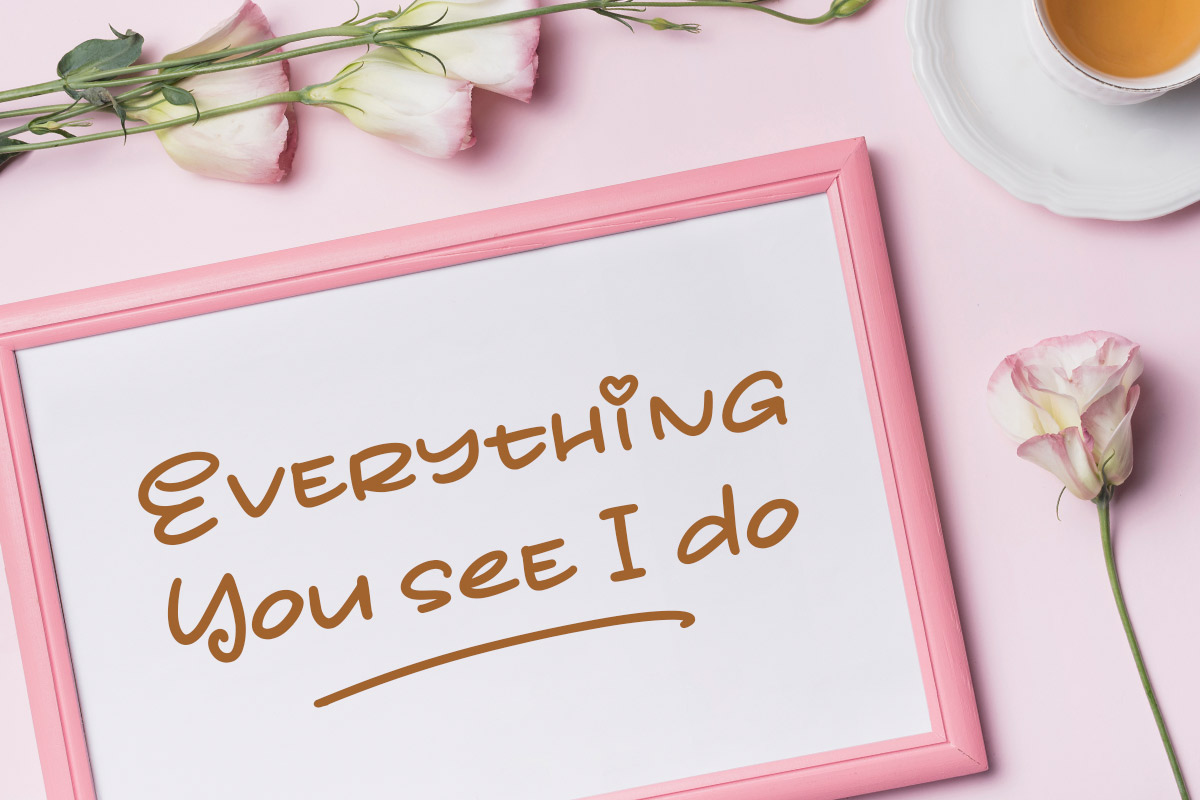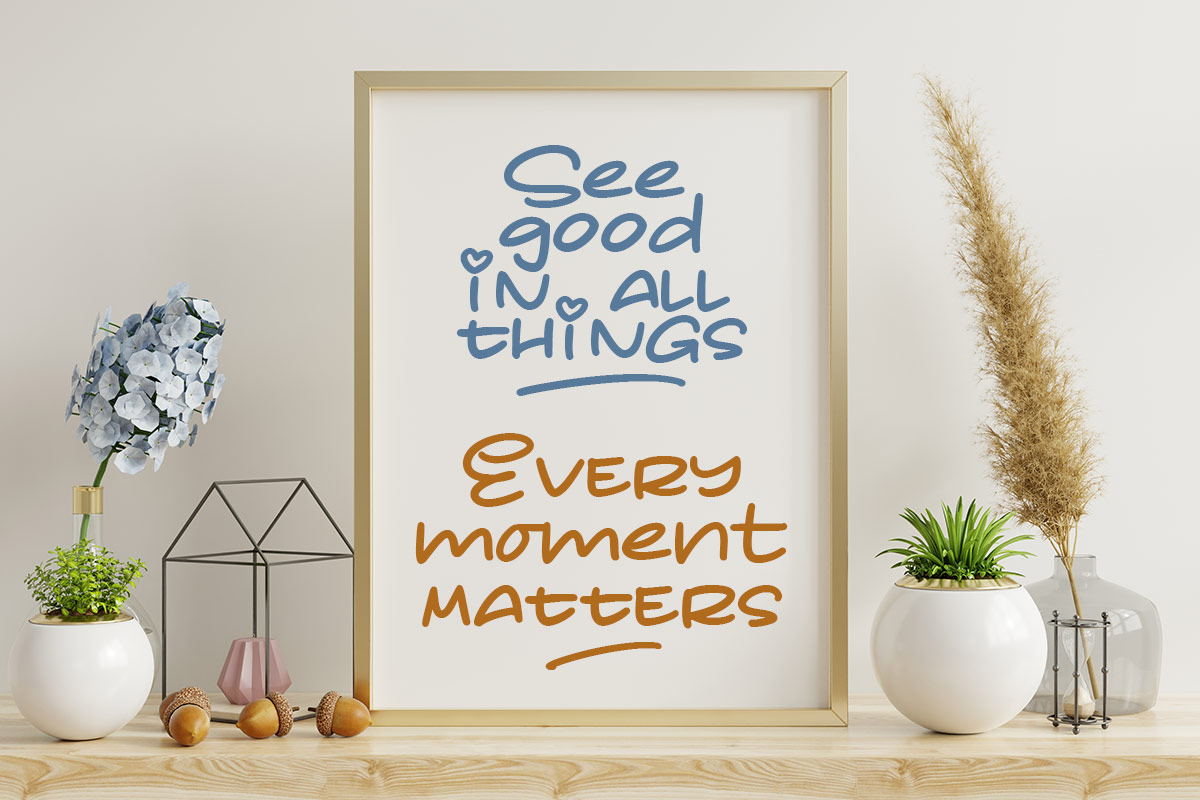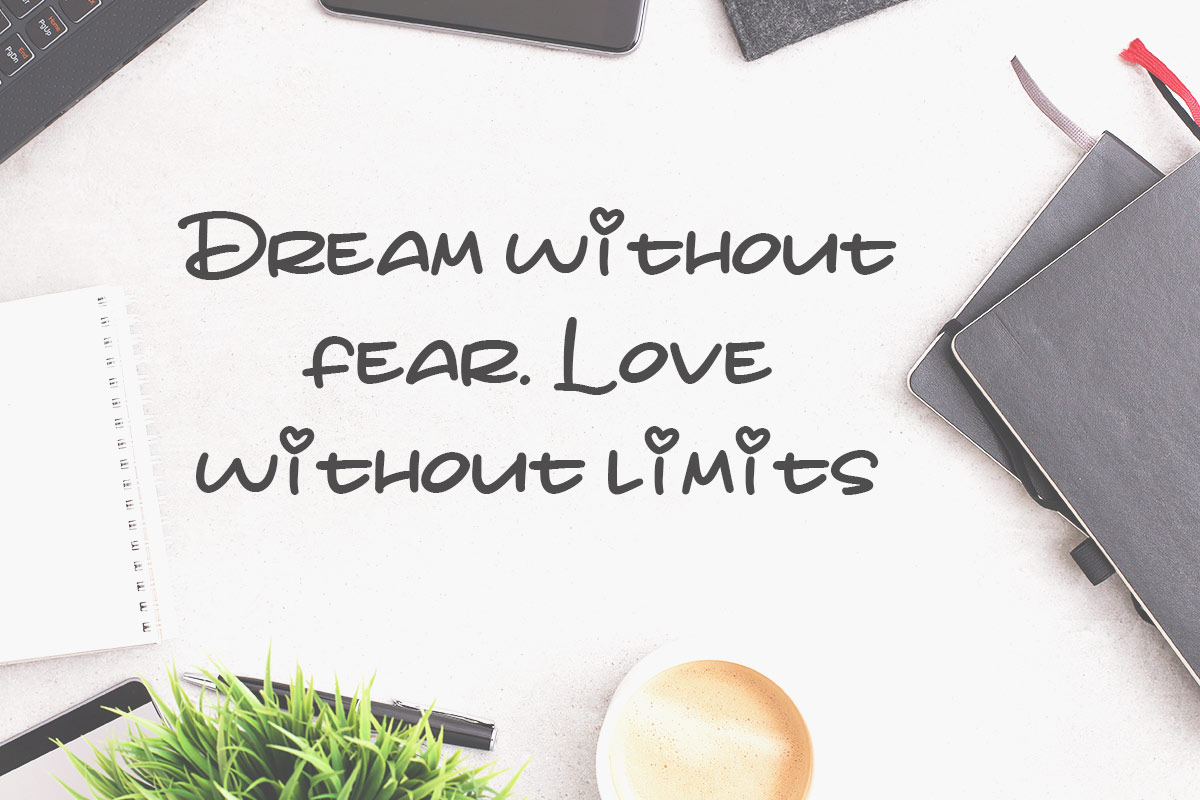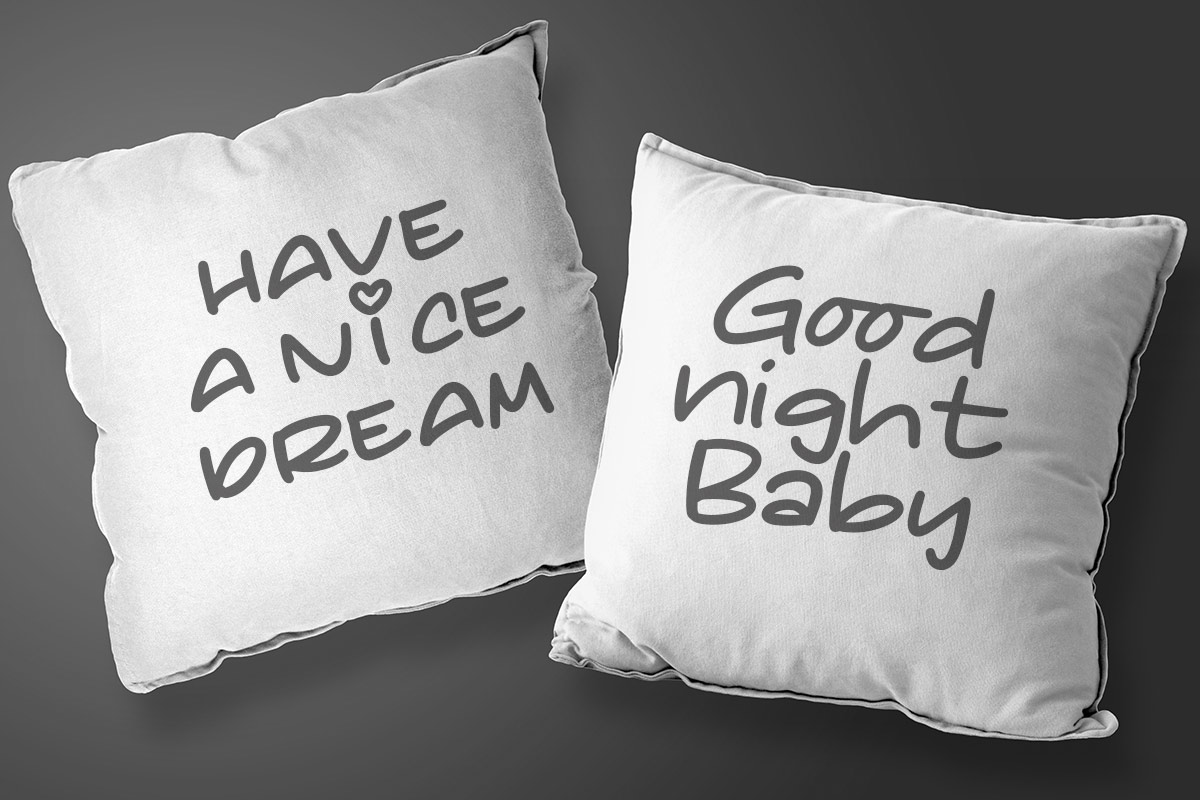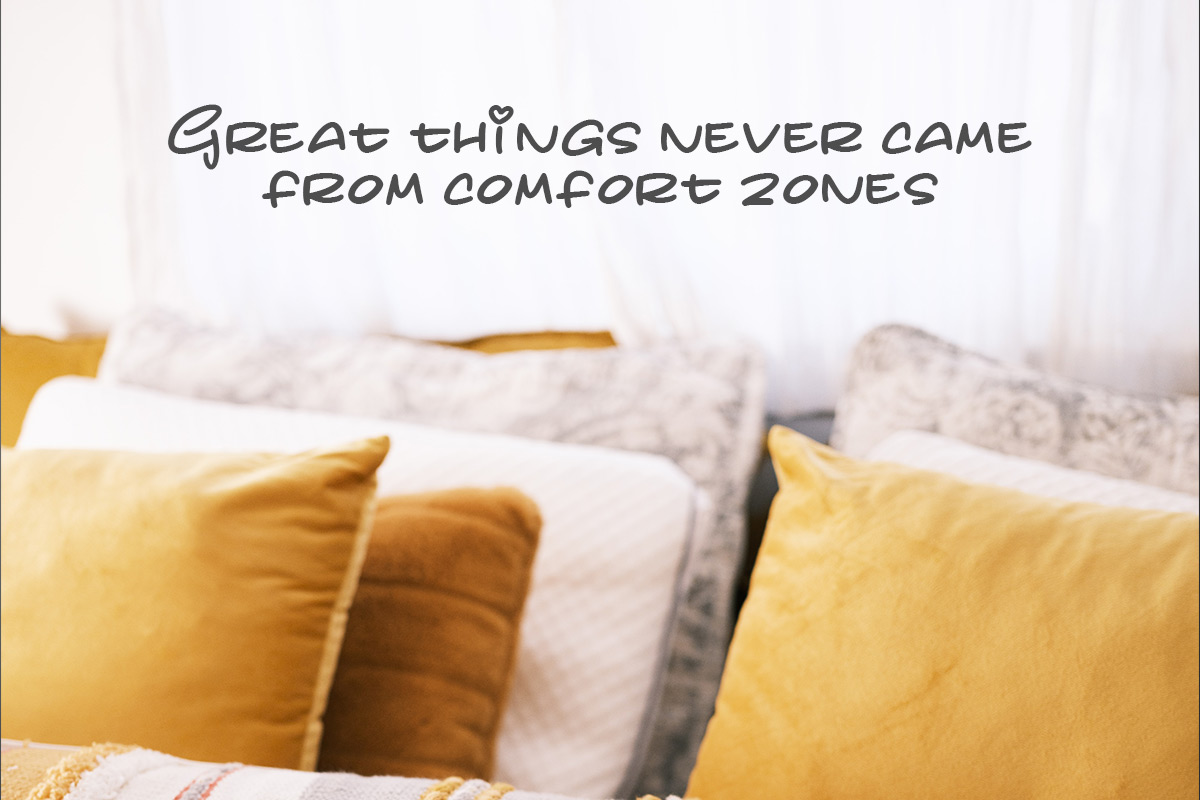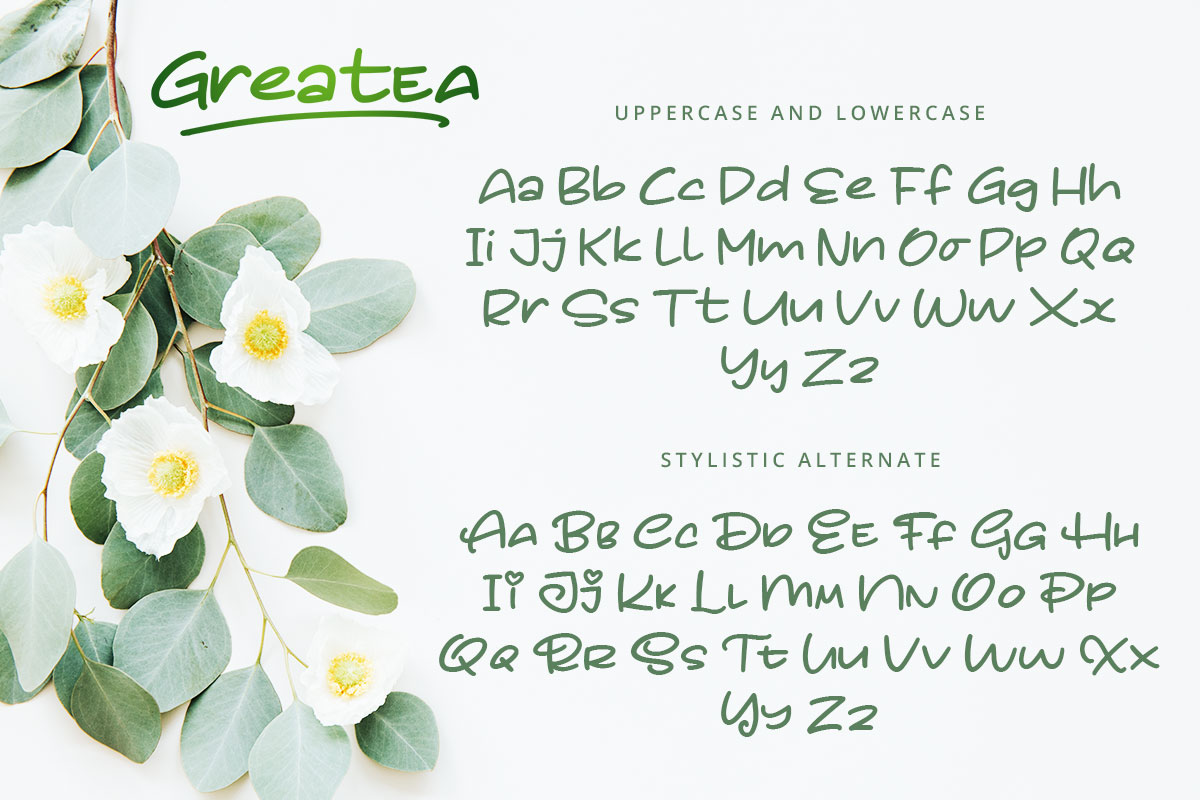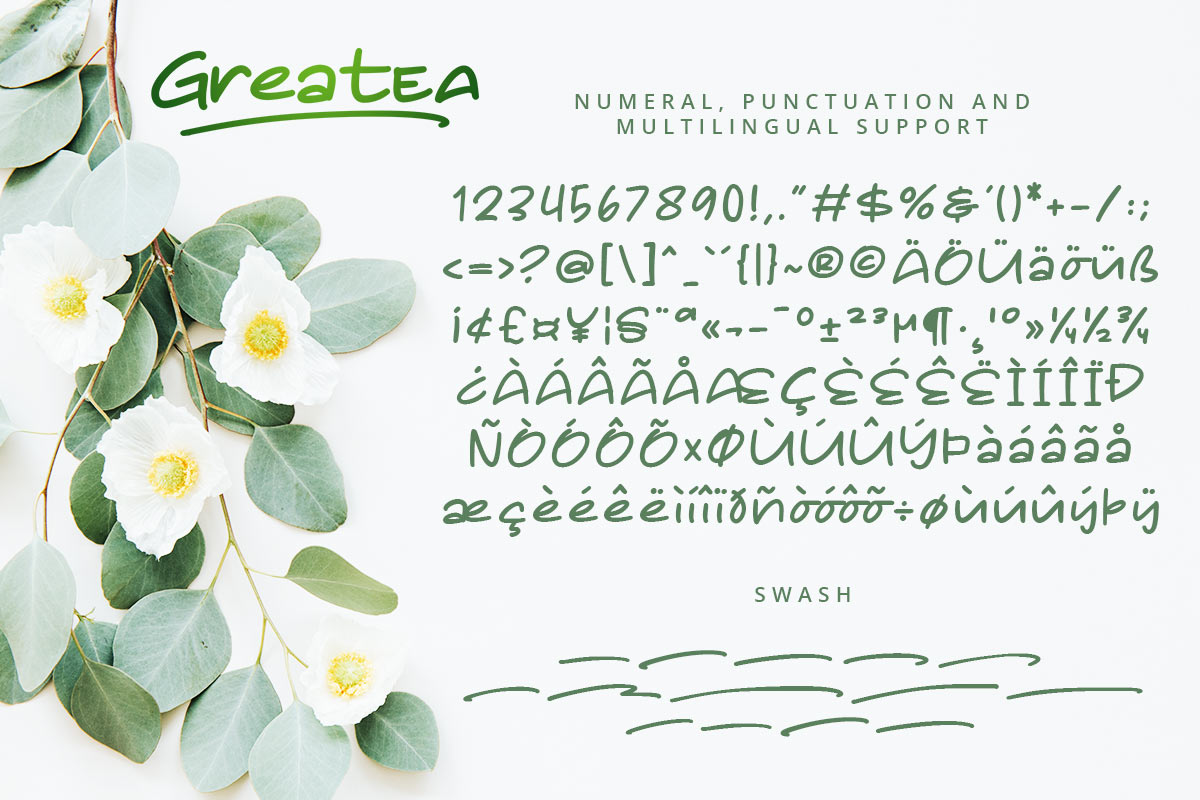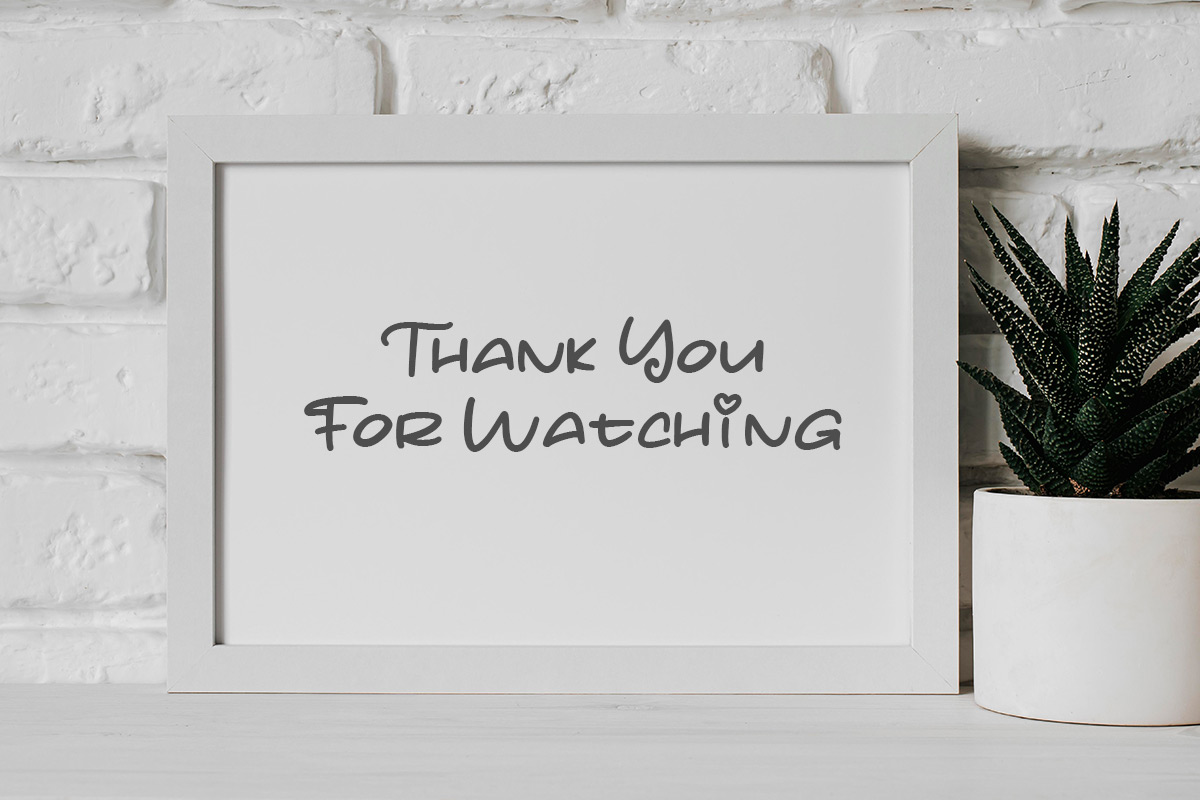
Greatea Monoline Font is the name given to this attractive script font. This font comes with a modern, unique, and attractive look. The font looks cool and can captivate every pair of people's eyes. Greatea Monoline Font can use as a bold font and a modern font. Greatea Monoline Font can use for event titles such as skateboarding events. This font can use as; a digital font such as film, intro, and video outro. This font can give a modern impression to everyone who sees it. As well as being digital, it can use on hoodies, jackets, and other clothing design items. Apart from the things mentioned above, Greatea Monoline Font can be used to write product promotions brochure titles. This strong font character can make people know the brochure's contents by looking at the title and the font used. This font can use as a sign for a place or event. Our Script & Signature font collection is compatible to use as Figma Fonts, Canva Fonts, Freepik Fonts, and Adobe Fonts. They also work as Windows Fonts and Apple Fonts. For your social media needs, you can use and install fonts in our collection of Espot & Futuristic fonts to use as Instagram Fonts, Facebook Fonts, and Twitter Fonts.